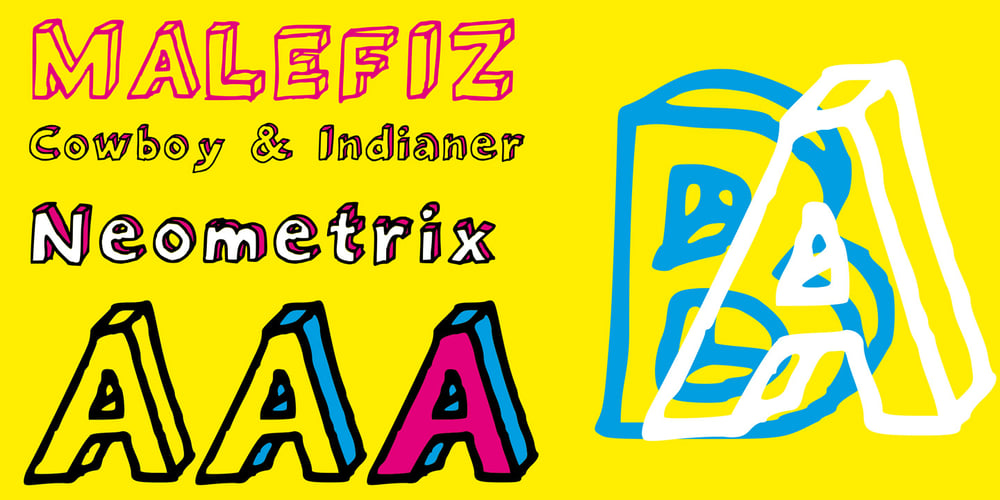
Neometrix
Neometrix font
Neometrix Font Family was designed by Florian Zietz and published by Librito.de. Neometrix contains 3 styles and family package options. This typeface consists of hand drawn three dimensional letters. There are three fonts altogether: Neometrix One, Neometrix Two and Neometrix Three. Neometrix One is the basic letter form, Neometrix Two is the shadow of the letters and Neometrix Three the front facing side of the letters.